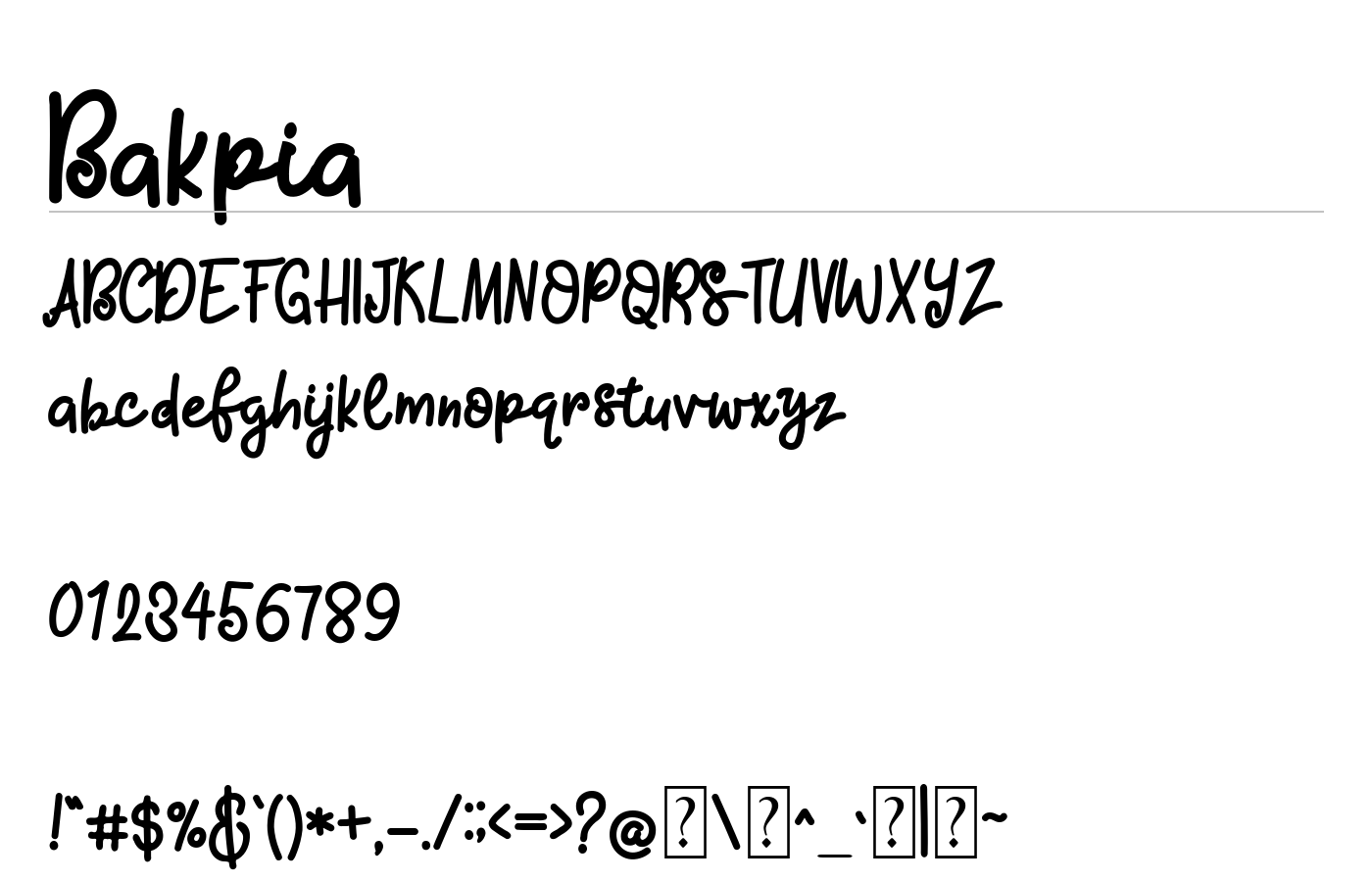
Bakpia is a playful and casual handwritten sans serif font featuring a lively, irregular stroke style with medium contrast and a slightly condensed width. Its quirky letterforms, including single-story a and distinctive ampersand, give it a friendly and approachable personality, ideal for informal branding, children’s products, or creative projects that benefit from a fun, personal touch. This font works well for headlines, logos, and packaging where a warm and inviting tone is desired.
Bakpia Font